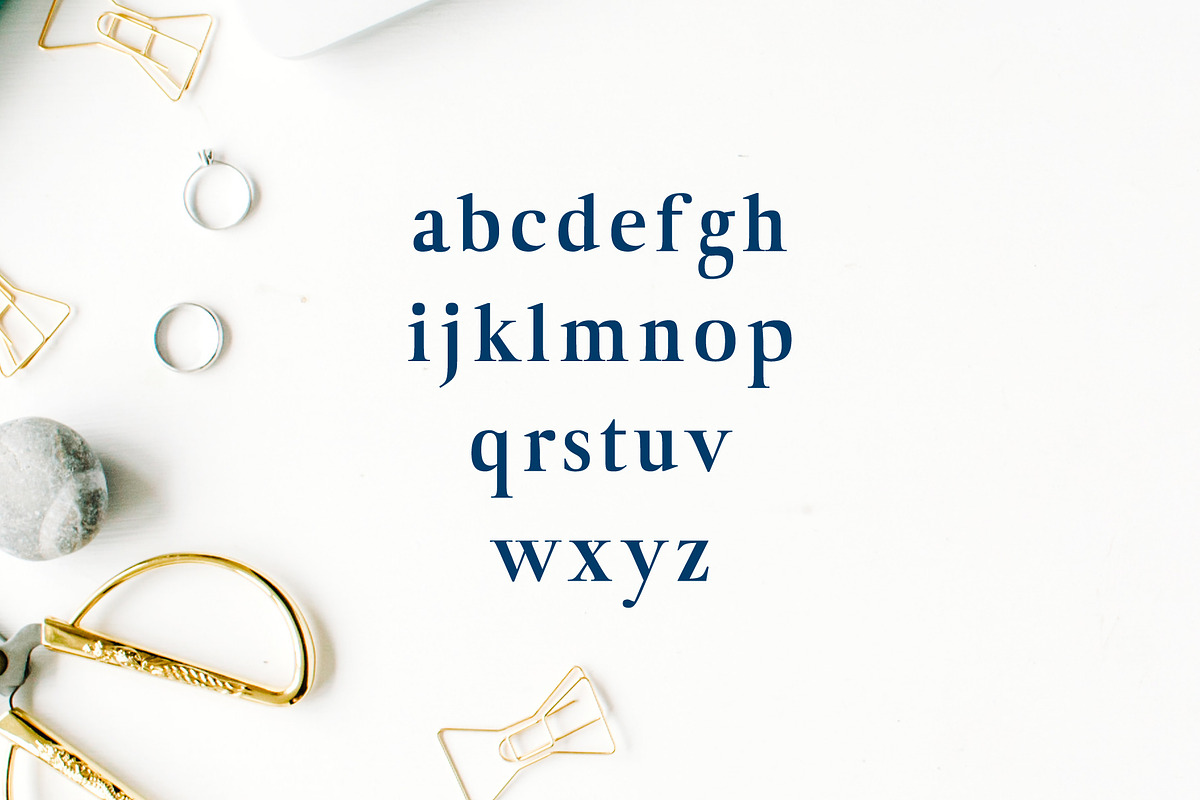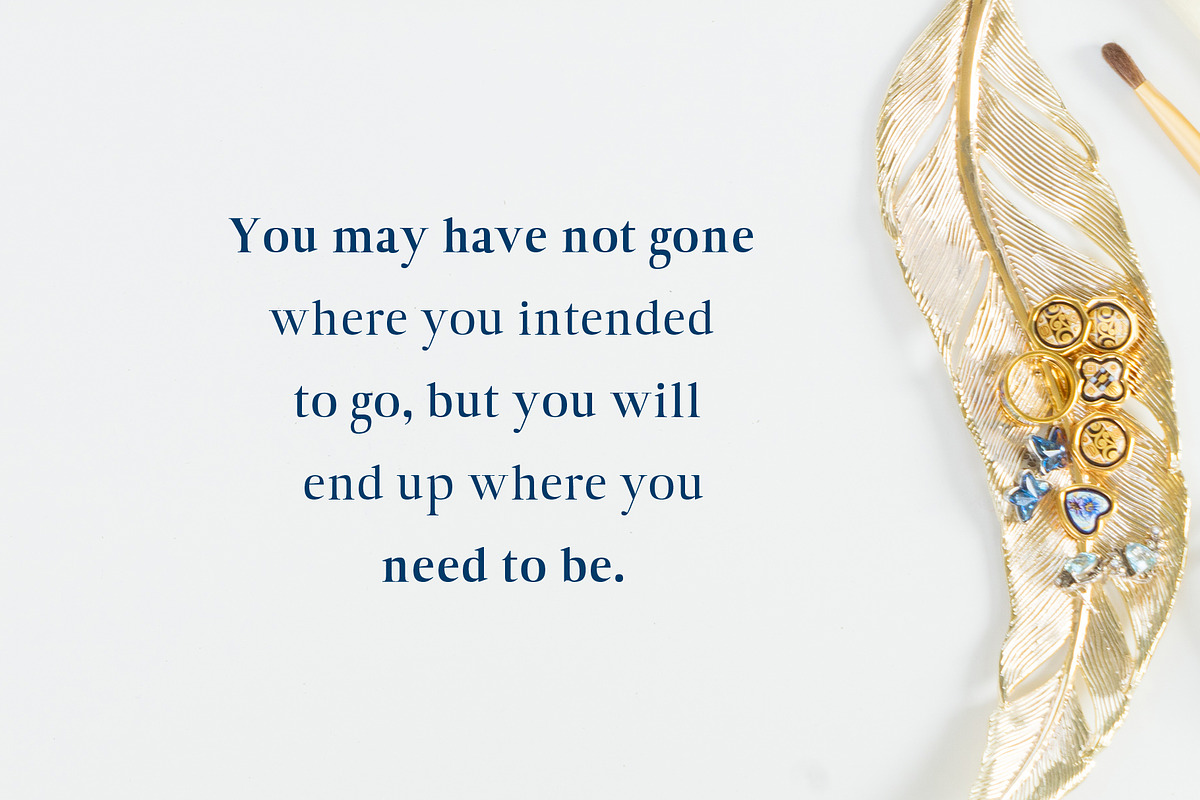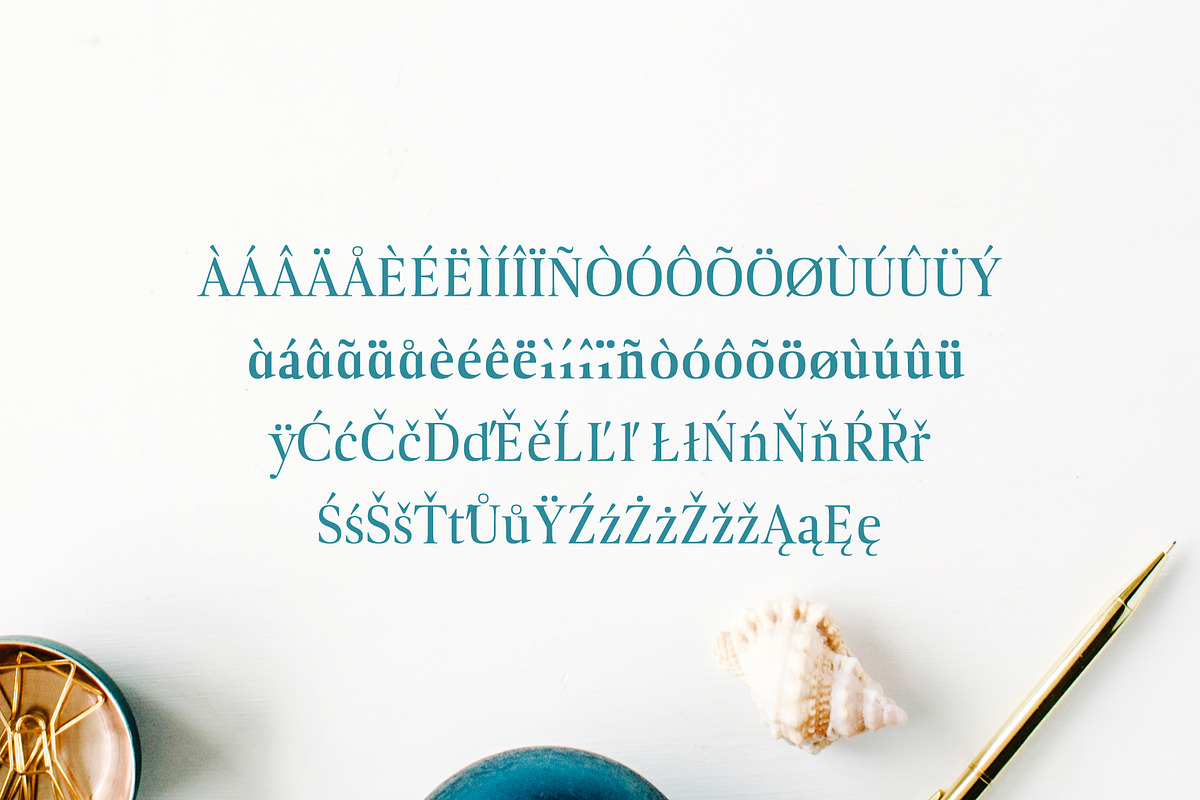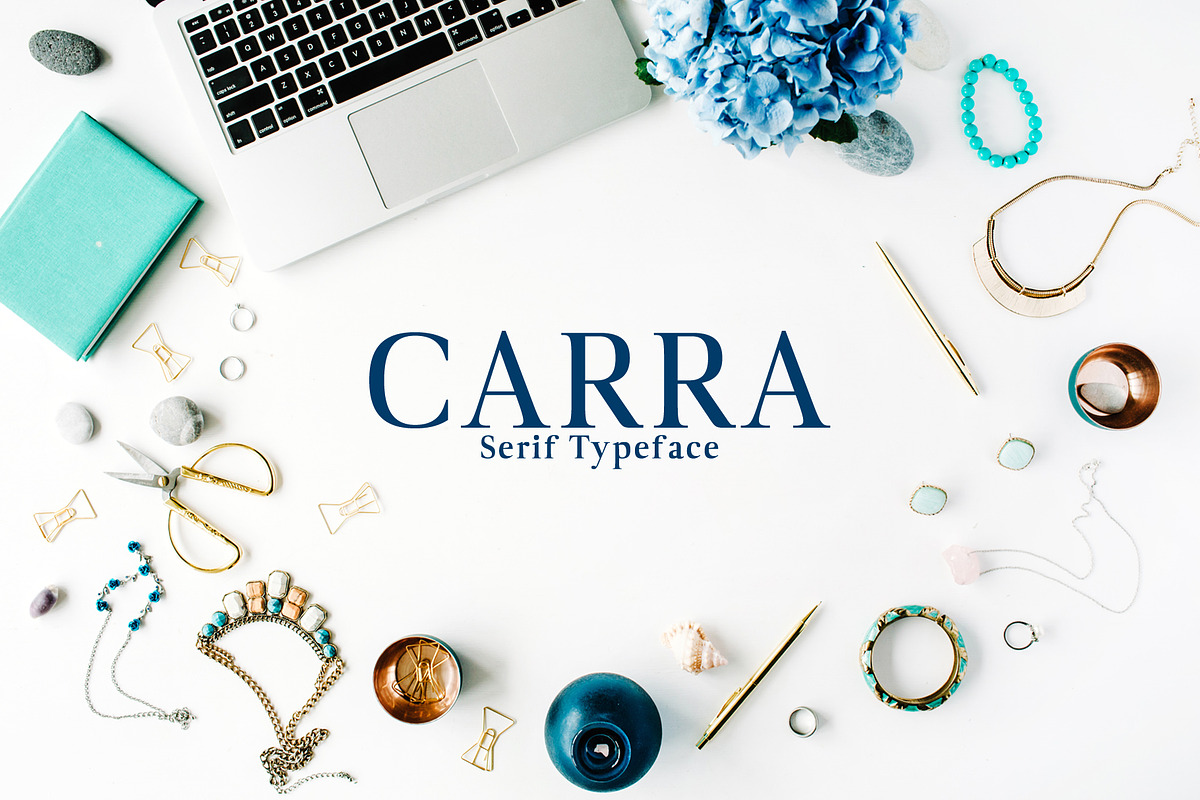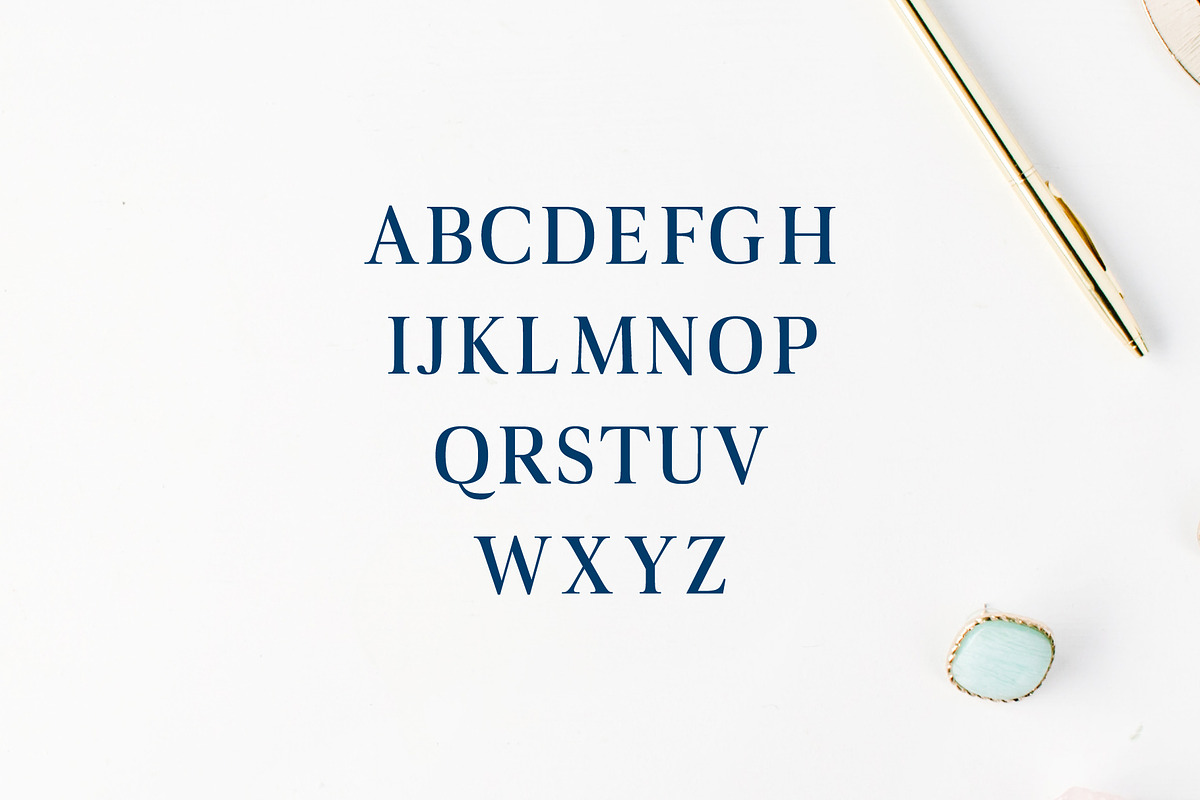
Carra Serif Font Family Pack
Carra Serif Typeface is a minimal clean serif font family, which contains 4 weights, It features unique and modern serif look and feel. Perfect for gorgeous logos, titles, web layouts and branding. It looks gorgeous in all caps with a wide-set spacing if you want to try a classy look, or beautiful on its own in capital and lowercase letters for something completely timeless.
Font Weight: Regular, Italic (NEW), Semi-Bold and Bold
Non English Characters ( Latin Supplement + Latin Extended A )